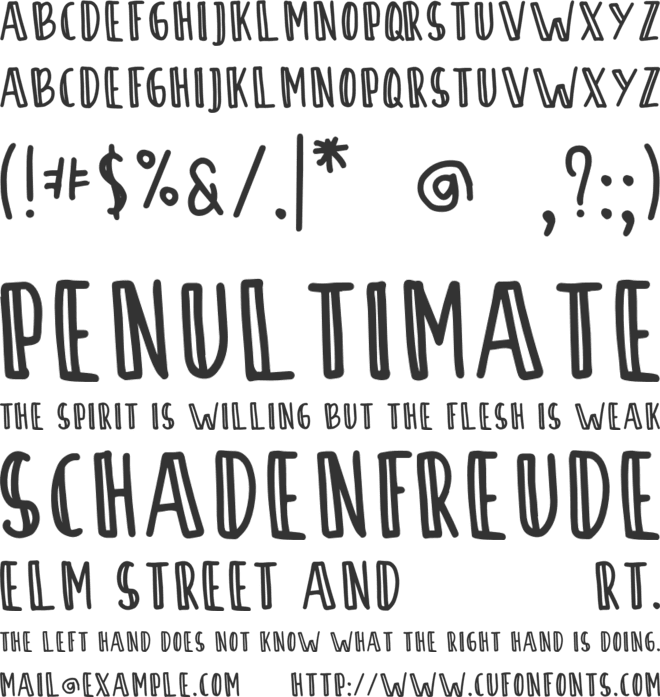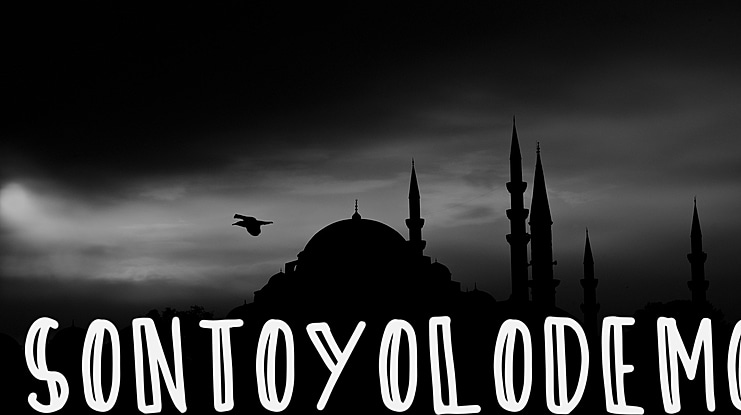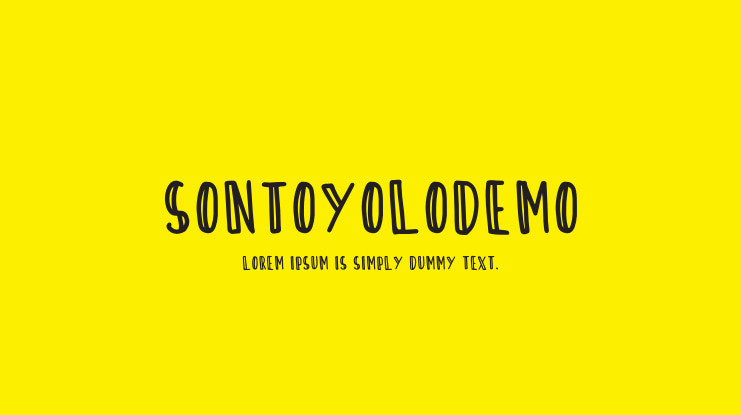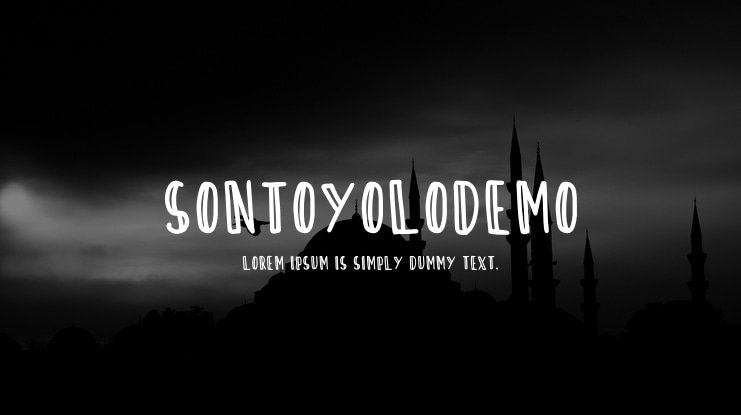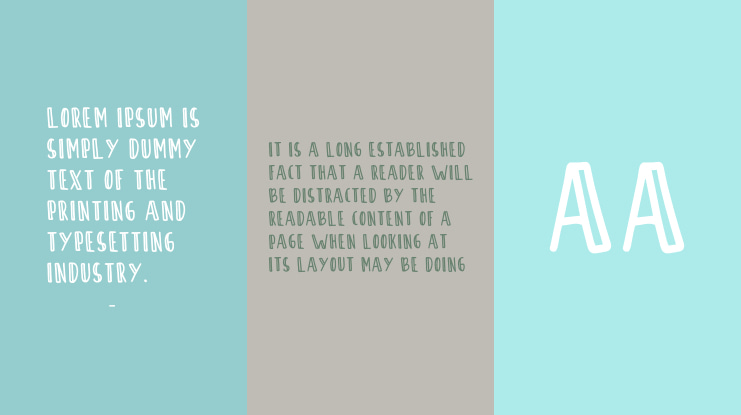
Sont O Yolo Font also includes full set of uppercase letters, numerals, punctuation, multilingual. It would be perfect for all types of printing techniques, you can do embroidery, laser cut, gold foil, etc.